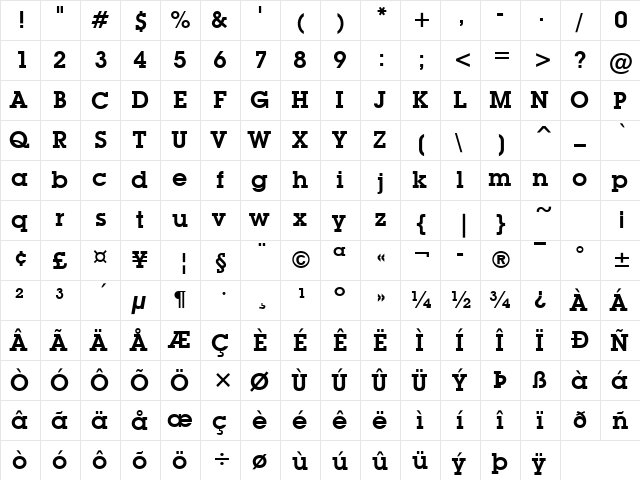
Mason Bold Font Preview
Mason Bold
Design Context for Mason Typeface
Mason takes a measured approach to typography — its balanced proportions and neutral character make it a reliable workhorse for both digital and print work. Its bold stroke weight gives it real presence on the page.